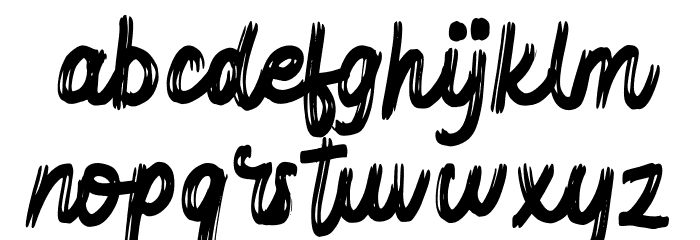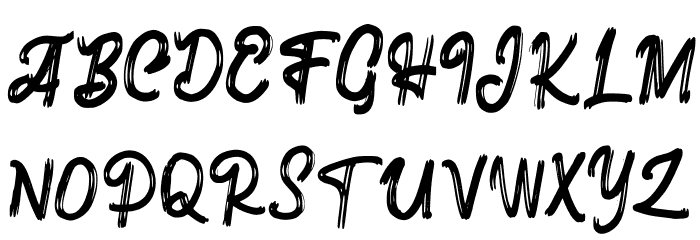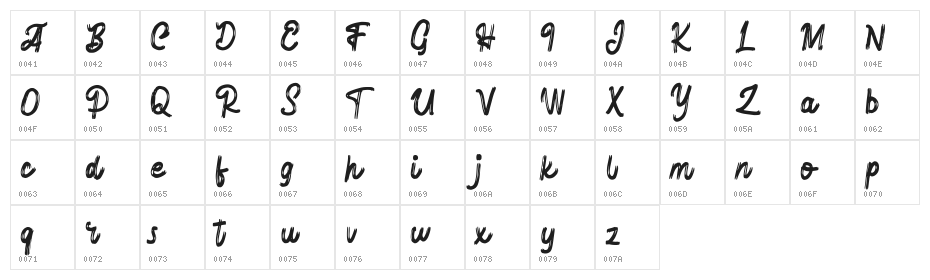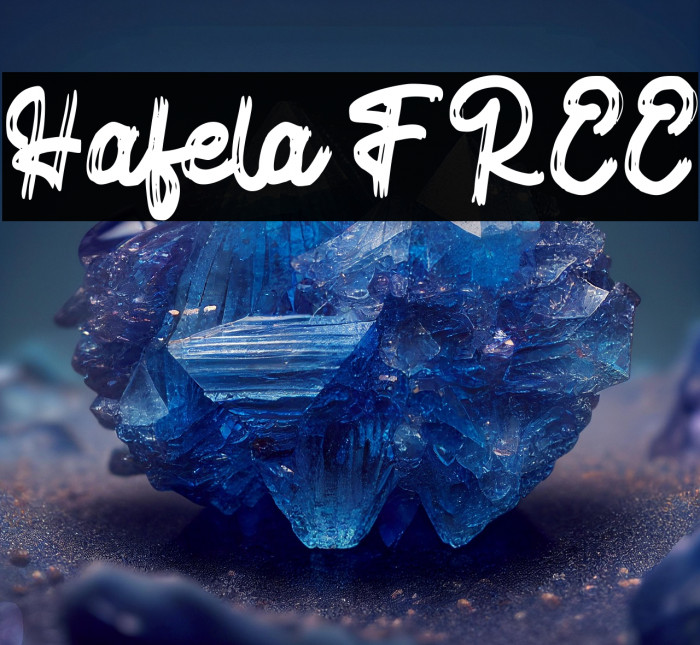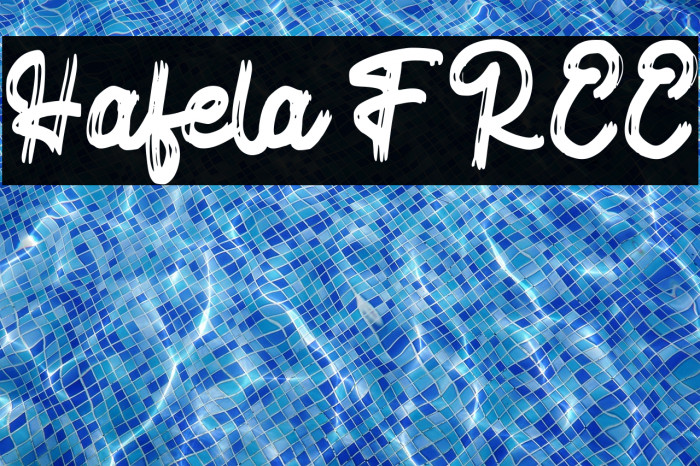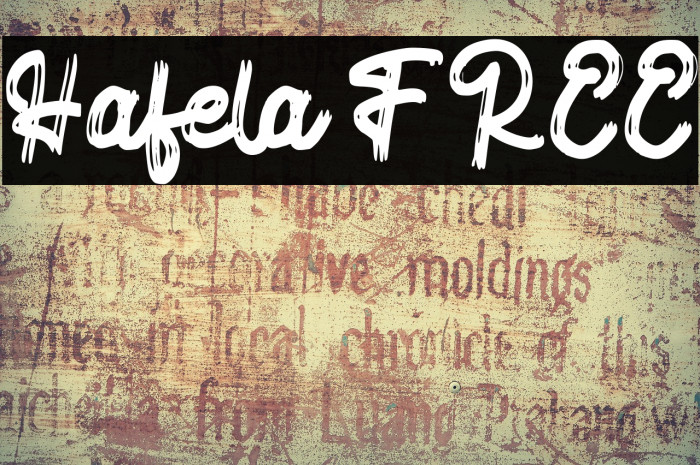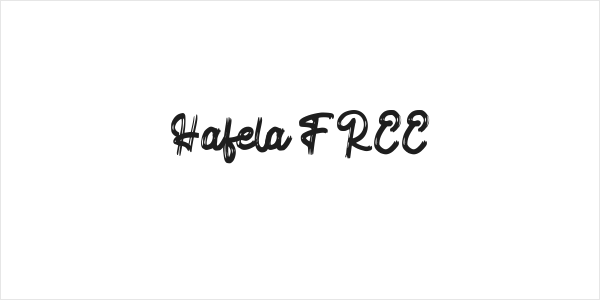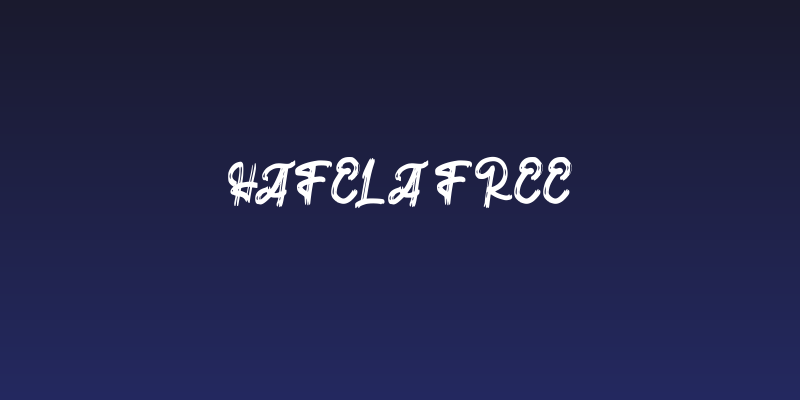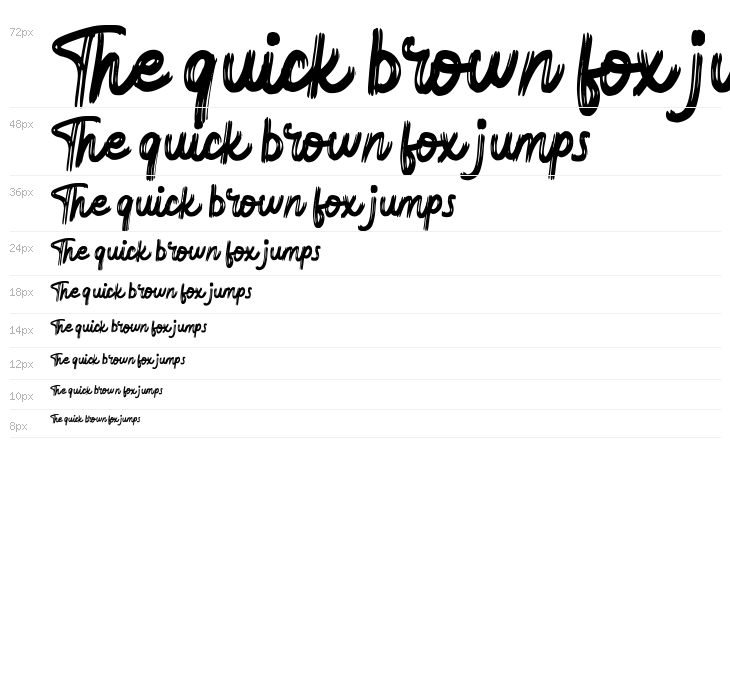
Hafela FREE Font
This font features a bold and dynamic brush script style, characterized by its energetic and expressive strokes. The letters have a hand-painted appearance, with varying thickness that adds a sense of movement and fluidity. The uppercase and lowercase letters maintain a consistent style, with the uppercase letters being slightly more pronounced. The numbers and special characters follow the same artistic brush style, making them visually cohesive with the alphabet. This font's unique design is suitable for projects that require a personal and artistic touch.
A bold, dynamic brush script font with an expressive, hand-painted style.